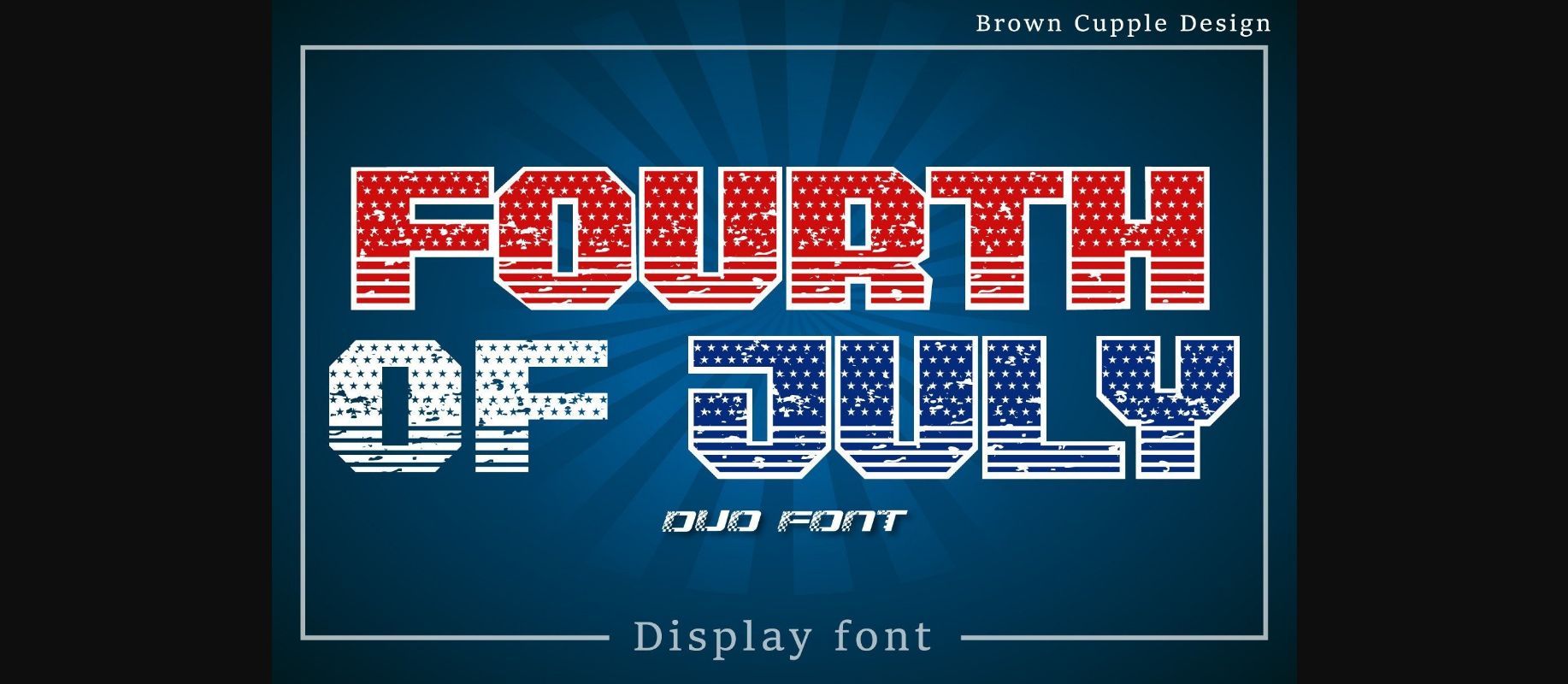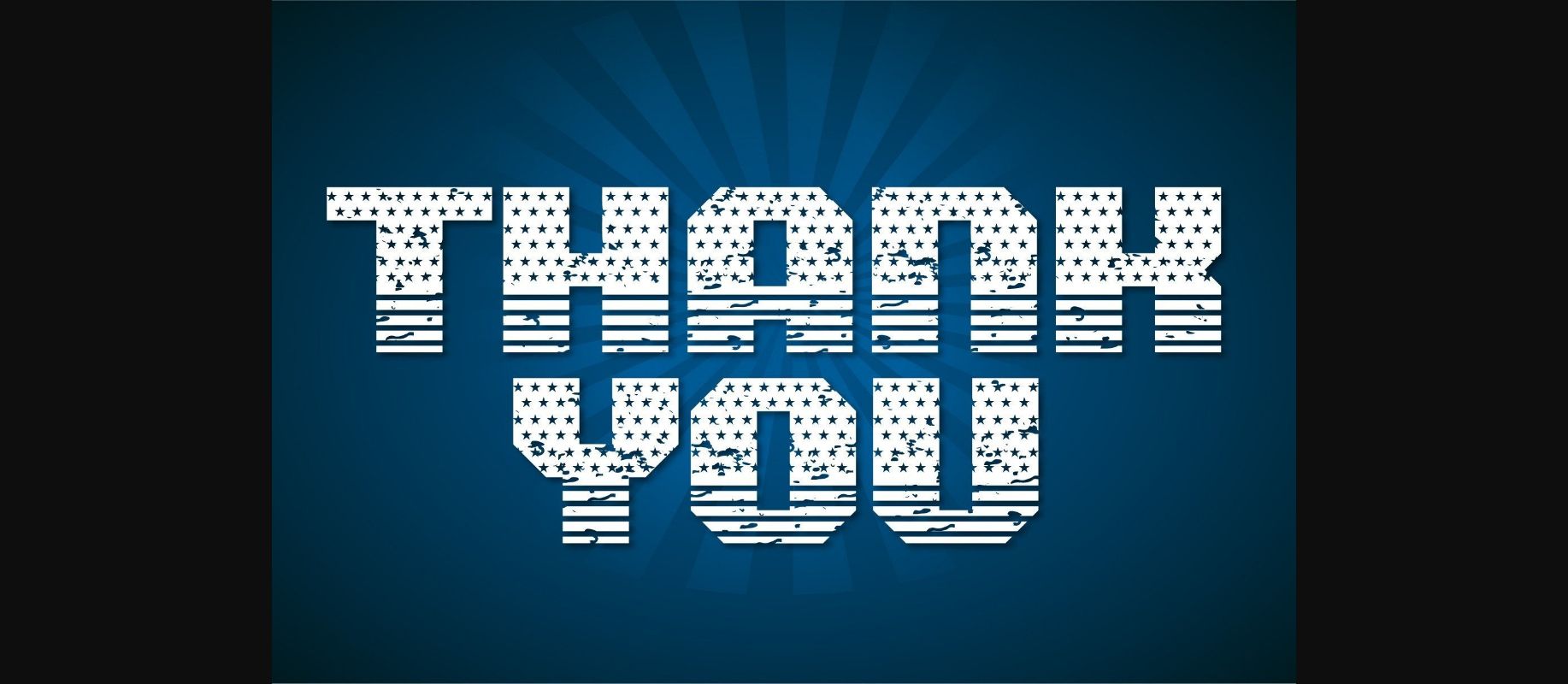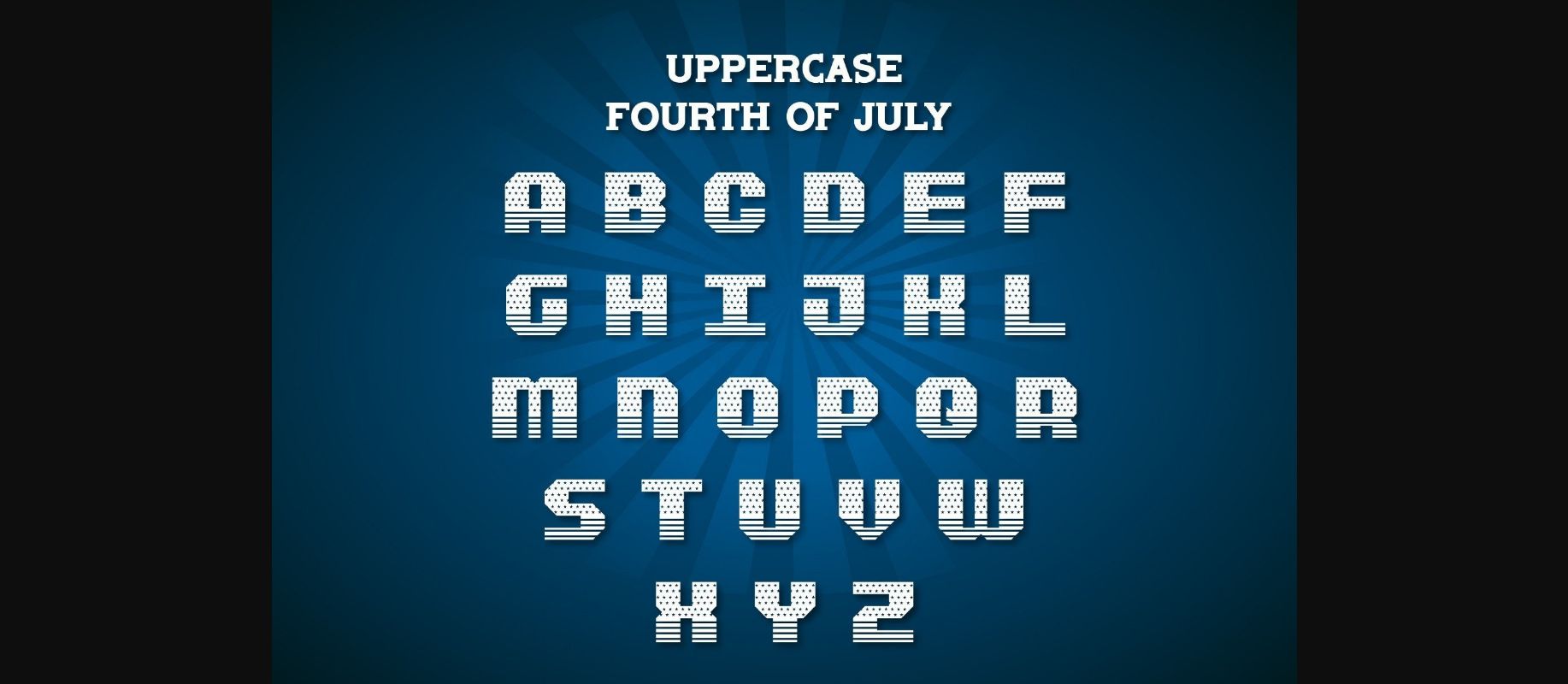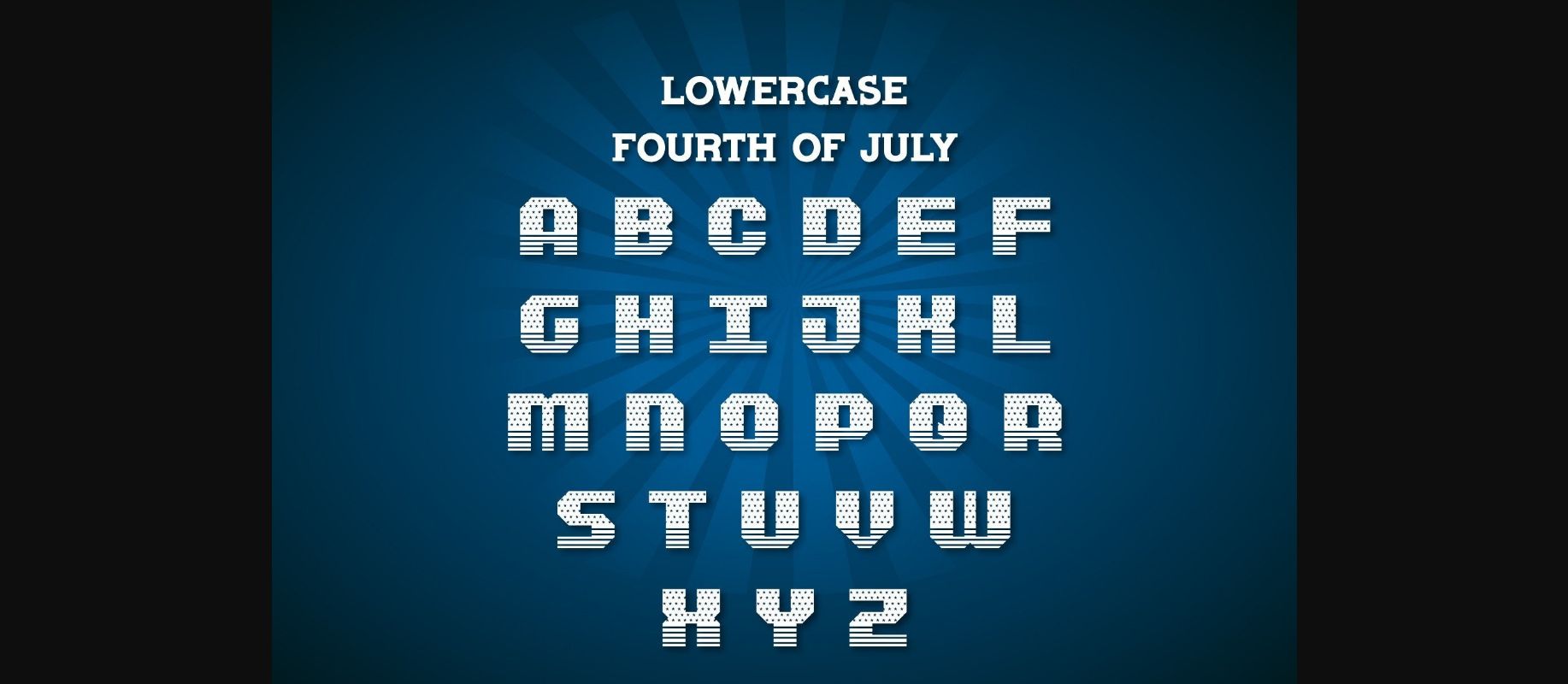
About Fourth of July Font
Fourth of July is a bold, incredibly cool, and assertive decorative font. You can use it for various projects such as blog posts, logos, branding, ads, invitations, greeting cards, planners, photo albums, decorations, and much more. Add it to any of your designs, and enjoy the results!